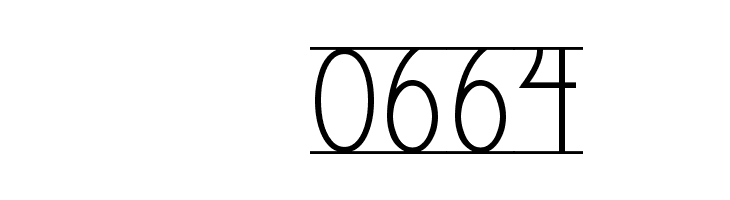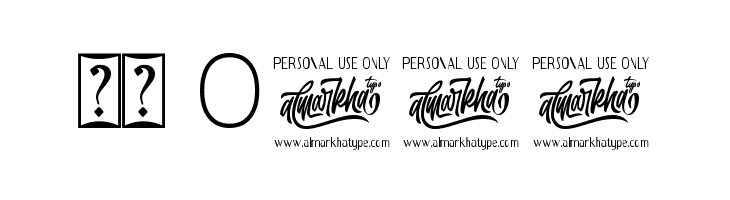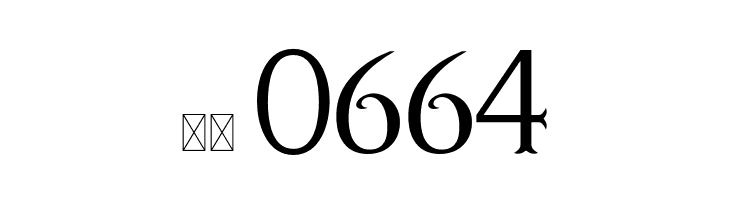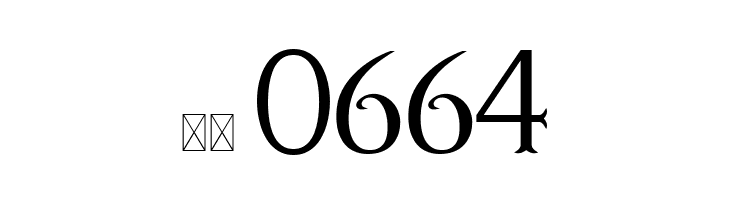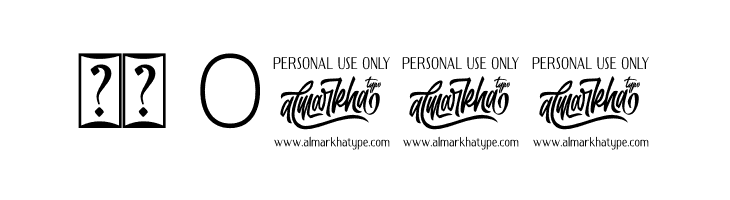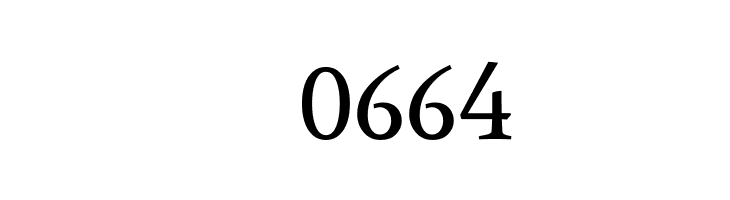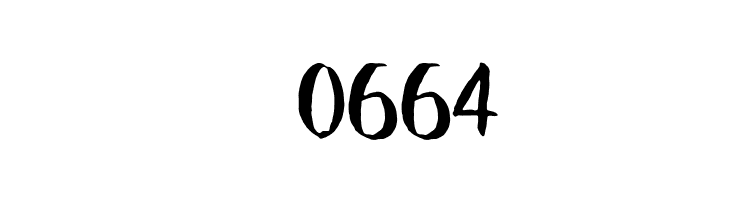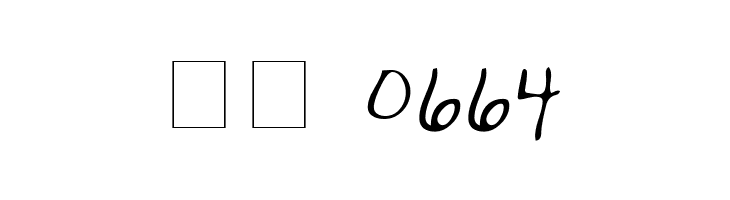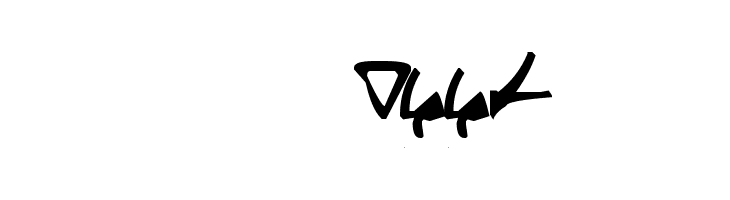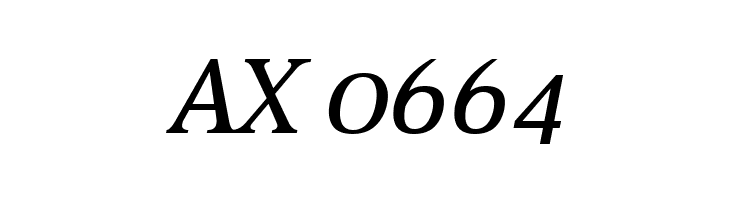
• Aver Italic
An elegant italic serif font with smooth lines and a classic touch.
• Aver Regular Italic
• Average
A classic serif font with elegant strokes and balanced proportions.
• Average Custom Level 2 Regular
• Average Custom Regular
A bold, modern sans-serif font with clean lines and uniform stroke width.
• AveraSansTC-Brush
A bold, brush-style font with a hand-drawn, artistic appearance.
• Avern
A dynamic, abstract handwritten script with sharp angles and fluid curves.
• Averoos
A bold, gothic-inspired font with sharp, angular edges and high contrast.
• Averoos
A bold, angular font with a Gothic-inspired, modern design.
• averox
A sleek, modern font with geometric lines and excellent readability.
• averox
A sleek, minimalist font with geometric lines and a modern aesthetic.
• AvertasteviaPERSONALUSEONLY-Reg
An ornate, Gothic-style font with intricate detailing and dramatic flair.
• AvertequestraPERSONALUSEONLY-Re
A bold, decorative blackletter-style font with intricate details.
• Averus
A bold, italicized font with a modern, dynamic style.
• AverysHand
• AvestravaRegularPersonalUseOnly
A bold, ornate Gothic script with intricate flourishes and sharp, angular lines.